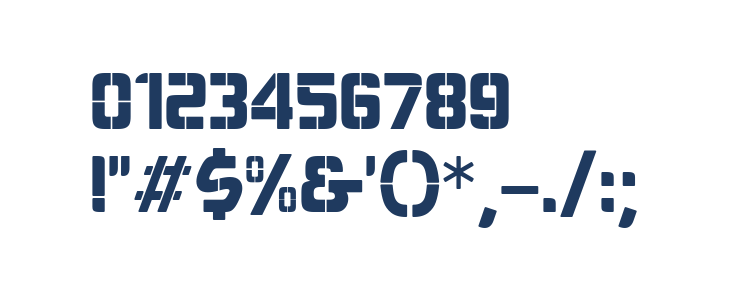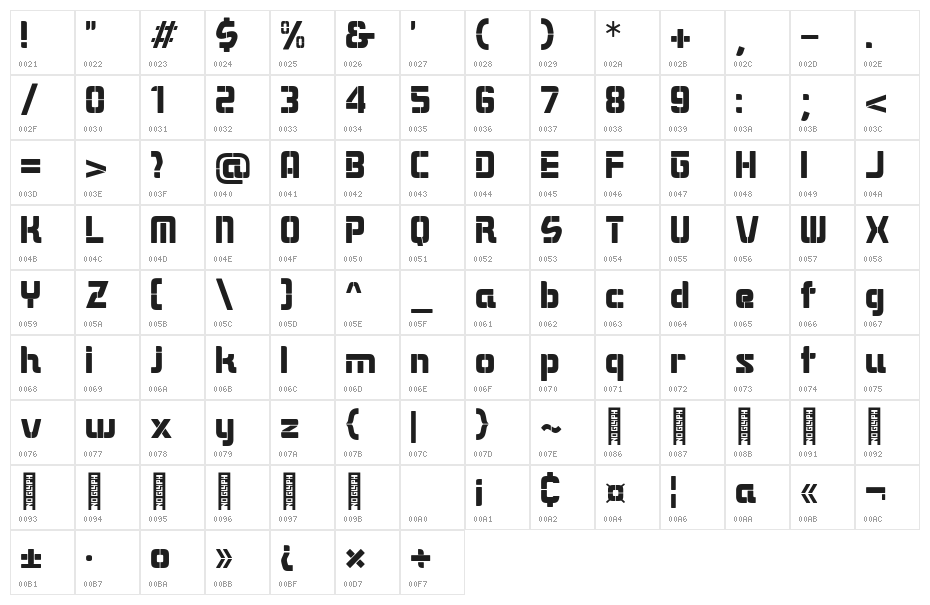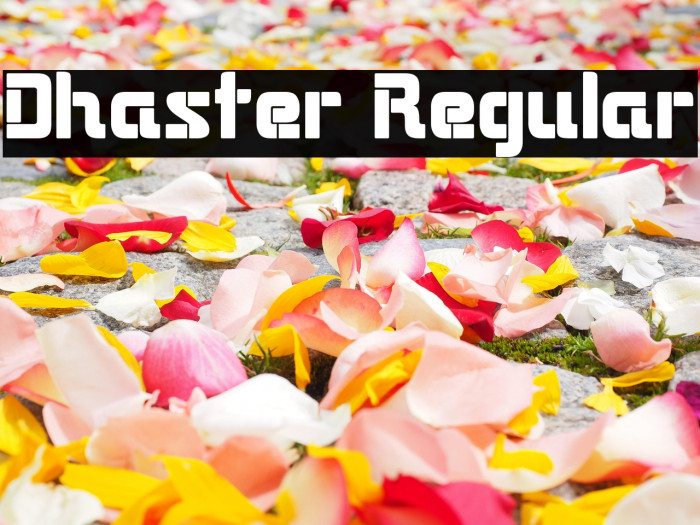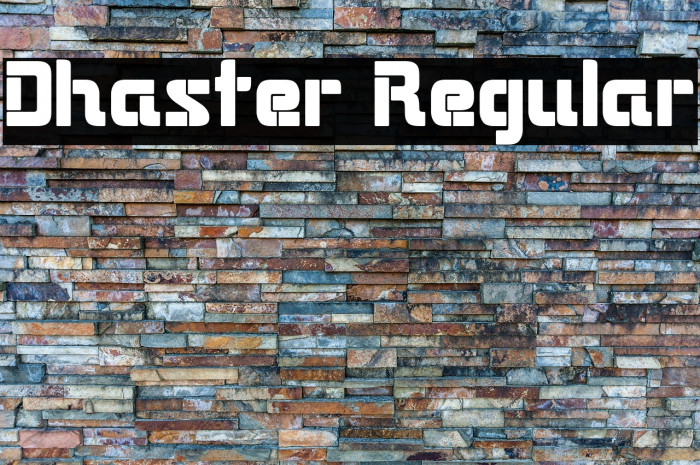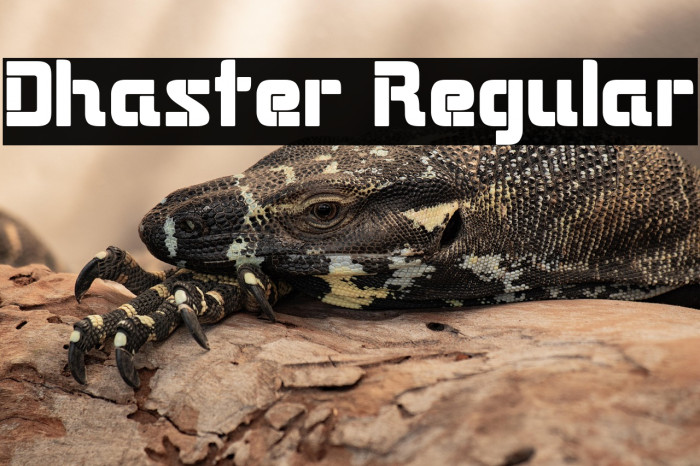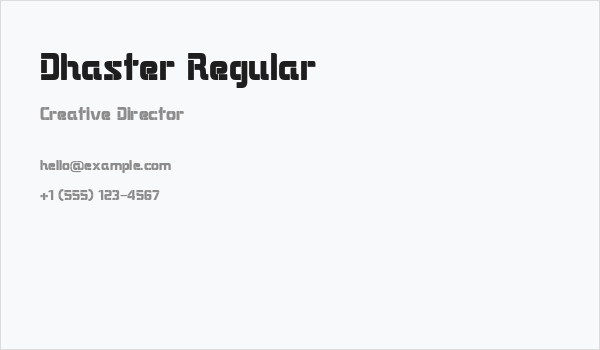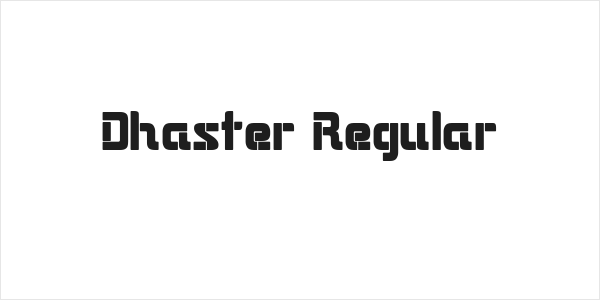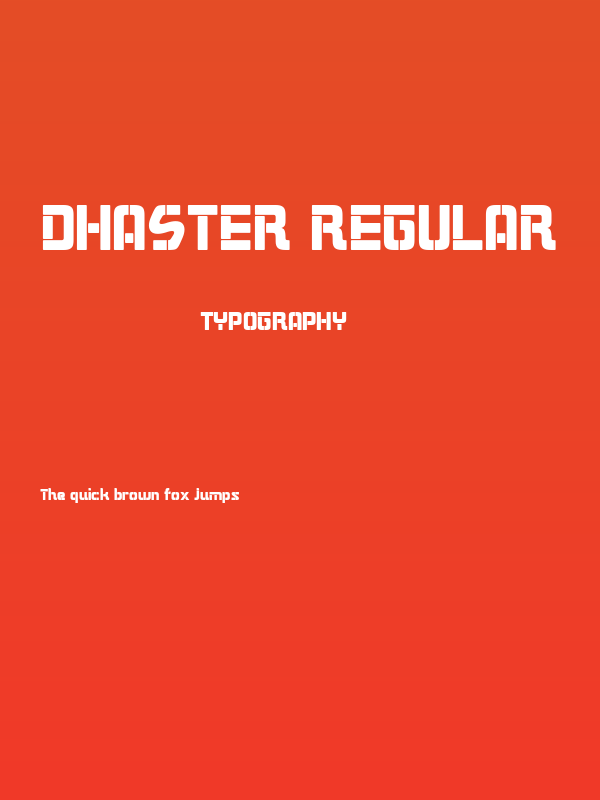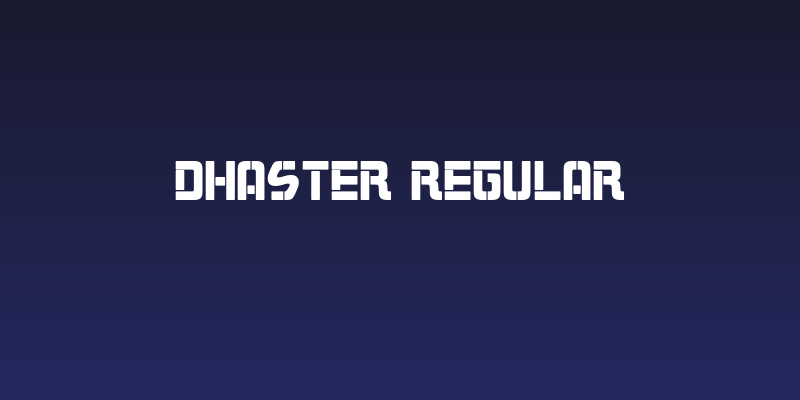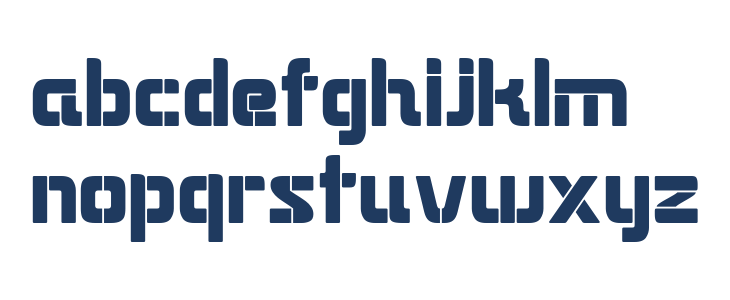
Dhaster Regular Font
Dhaster Regular Description
This font features a bold and geometric design with a modern, industrial feel. The characters are constructed with thick, block-like strokes that create a strong visual impact. The uppercase and lowercase letters maintain a consistent style, with angular cuts and a slightly condensed form. The numbers and special characters follow the same design principles, ensuring uniformity across all glyphs. The font's unique style makes it suitable for projects that require a contemporary and edgy look, such as branding for tech companies, posters, and digital media. Its boldness and distinct character shapes make it stand out, while the geometric elements add a touch of sophistication.